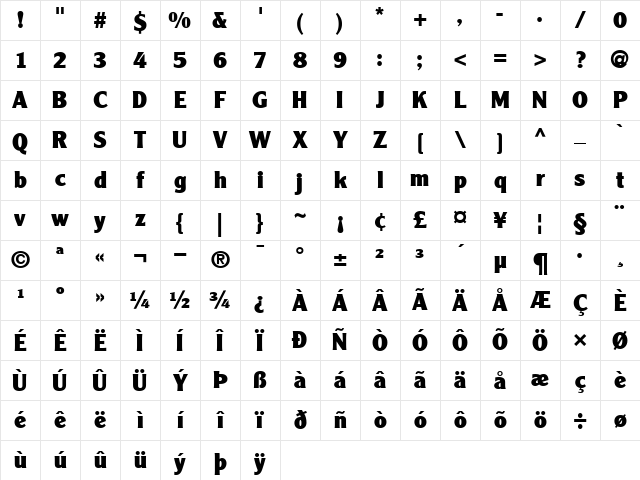
Complete ClearfaceGothicLH95- Black glyph index. Displaying only characters natively supported by ClearfaceGothicLH95- Black font.
ClearfaceGothicLH95- takes a clean, functional approach - its unadorned letterforms prioritise legibility and work reliably across screen and print environments.
Font Pairing: Works well alongside a characterful serif or display font that can carry the expressive load while ClearfaceGothicLH95- handles the functional copy.
Pro Tip: Use ClearfaceGothicLH95- for UI labels, navigation, and short-form body copy where clean legibility is the priority.